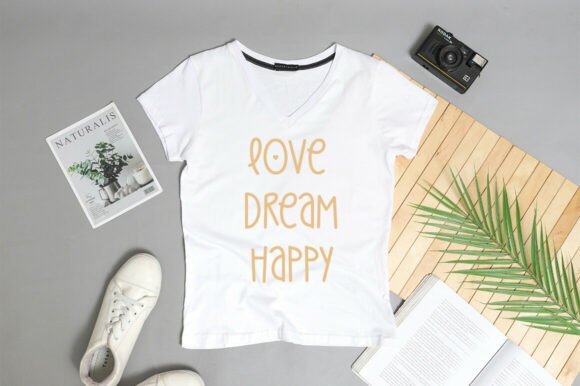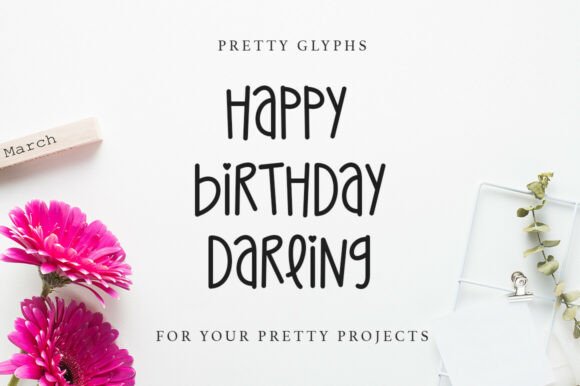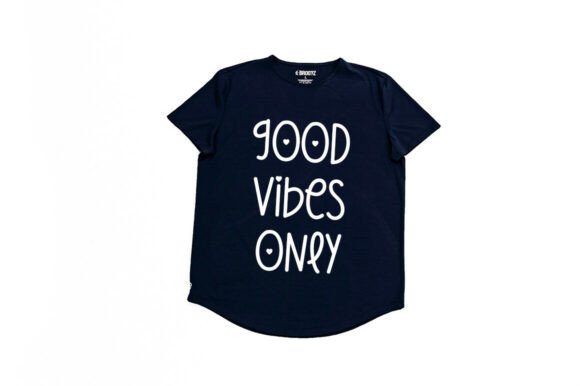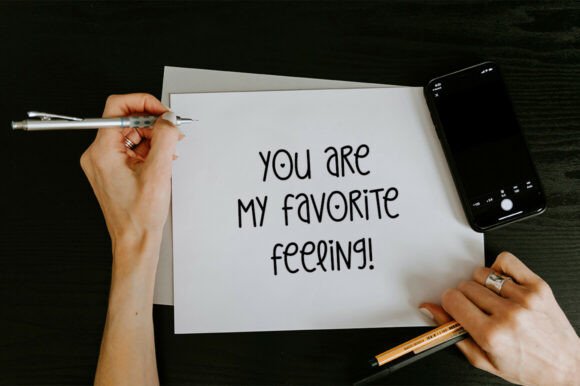
The Joyful Bounce Smile Font: Adding Playfulness to Your Designs
I still remember the time I was working on a children’s birthday card project, and I just couldn’t find the right font to match the playful vibe I was going for. The client wanted something that felt hand-drawn, fun, and energetic. I scoured through font libraries, but nothing seemed quite right. That was until I stumbled upon the Bounce Smile font. Its slender, elongated proportions and bouncy baseline immediately caught my eye, and I knew I had found the perfect fit.
A Personal Review of Bounce Smile
I’ve had the pleasure of working with Bounce Smile on several projects, and here’s what I love about it:
- ✨ Playful and whimsical feel: Bounce Smile has a unique, hand-drawn quality that adds a touch of personality to any design.
- ✅ Excellent for kids’ content: The font’s lighthearted and youthful vibe makes it perfect for children’s greeting cards, educational materials, and more.
- ✨ Highly versatile: Bounce Smile works beautifully for branding, social media graphics, and even packaging design.
Of course, no font is perfect, and here are a few quirks to keep in mind:
- 🤔 Limited use for body text: Due to its slender proportions and playful nature, Bounce Smile is best suited for headlines, titles, and short paragraphs.
- ⚠️ May not work well for formal designs: If you’re looking for a font for a corporate or formal project, Bounce Smile might not be the best fit.
- Experiment with OpenType features, such as stylistic alternates and glyphs, to add more personality to your text.
- Explore the Glyphs panel to access alternative characters and OpenType features.
The Story Behind Bounce Smile
While the true story behind Bounce Smile remains a mystery, it’s easy to imagine that the designer was inspired by the carefree spirit of childhood. Perhaps they wanted to create a font that would bring a smile to people’s faces and add a touch of whimsy to their designs. Whatever the inspiration, Bounce Smile has undoubtedly become a beloved font among designers and crafters.
| Font Name | Bounce Smile Font |
| Author | Pretty Glyphs |
| What type of projects is Bounce Smile best suited for? | Bounce Smile is ideal for children’s content, playful branding, social media graphics, and creative projects that require a lighthearted, hand-drawn aesthetic. |
| Is Bounce Smile available in different weights or styles? | Currently, Bounce Smile is available as a single font, but its versatility and range of OpenType features make it suitable for various design applications. |
| Can I use Bounce Smile for body text? | While Bounce Smile is primarily designed for headlines and titles, it can be used for short paragraphs. However, its slender proportions and playful nature make it less suitable for lengthy body text. |